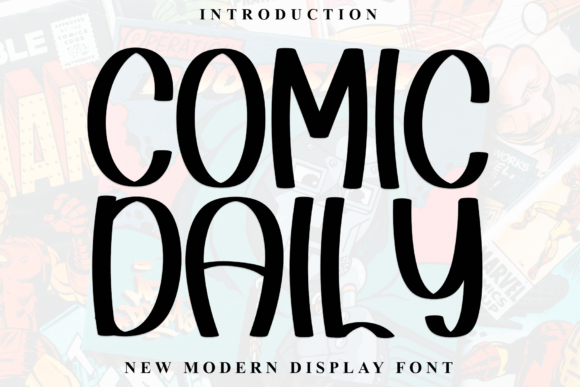
Introducing Comic Daily Font: Adding a Touch of Playfulness to Your Text
Are you looking for a font that can add a dash of excitement and playfulness to your text? Look no further than Comic Daily Font! This fun and lively font is designed to mimic the hand-drawn letters found in comic books, making it perfect for anyone looking to add a touch of whimsy to their writing.
What is Comic Daily Font?
Comic Daily Font is a unique and creative font that is inspired by the classic comic books of the past. It’s designed to look like hand-drawn letters, with a playful and energetic feel that’s sure to capture the attention of your readers. Whether you’re creating a comic book, a poster, or just a simple text document, Comic Daily Font is the perfect choice.
Key Features of Comic Daily Font
So, what makes Comic Daily Font so special? Here are just a few of its key features:
- Hand-drawn look: Comic Daily Font is designed to look like hand-drawn letters, giving it a unique and playful feel.
- Comic book-inspired: The font is inspired by classic comic books, making it perfect for anyone looking to create a comic book-style text.
- Fun and lively: Comic Daily Font is the perfect choice for anyone looking to add a touch of excitement and playfulness to their text.
- Easy to read: Despite its playful design, Comic Daily Font is still easy to read, making it perfect for use in a variety of contexts.
How to Use Comic Daily Font
Using Comic Daily Font is easy! Here are a few tips to get you started:
- Pair it with other fonts: Comic Daily Font works well when paired with other fonts, such as sans-serif fonts like Arial or Helvetica.
- Use it for headings: Comic Daily Font is perfect for use in headings and titles, where its playful design can really shine.
- Experiment with colors: Comic Daily Font looks great in a variety of colors, so don’t be afraid to experiment and find the perfect color for your text.
Benefits of Using Comic Daily Font
So, why should you use Comic Daily Font? Here are just a few of its benefits:
- Adds a touch of personality: Comic Daily Font is a great way to add a touch of personality to your text, making it stand out from the crowd.
- Perfect for creative projects: Comic Daily Font is perfect for use in creative projects, such as comic books, posters, and flyers.
- Easy to use: Comic Daily Font is easy to use, even for those who are new to graphic design.
Where to Use Comic Daily Font
So, where can you use Comic Daily Font? The answer is almost anywhere! Here are a few ideas to get you started:
- Comic books: Comic Daily Font is perfect for use in comic books, where its playful design can really shine.
- Posters and flyers: Comic Daily Font is a great choice for posters and flyers, where its bold and playful design can really grab people’s attention.
- Social media: Comic Daily Font is also a great choice for social media, where its fun and playful design can help your posts stand out from the crowd.
Tips for Using Comic Daily Font Effectively
Here are a few tips for using Comic Daily Font effectively:
- Use it sparingly: While Comic Daily Font is a fun and playful font, it can be overwhelming if used too much. Use it sparingly to add a touch of excitement to your text.
- Experiment with different sizes: Comic Daily Font looks great in a variety of sizes, so don’t be afraid to experiment and find the perfect size for your text.
- Pair it with images: Comic Daily Font looks great when paired with images, so consider using it in combination with photos or illustrations.
In conclusion, Comic Daily Font is a fun and playful font that’s perfect for adding a touch of excitement to your text. With its hand-drawn look and comic book-inspired design, it’s a great choice for anyone looking to create a lively and engaging text. Whether you’re creating a comic book, a poster, or just a simple text document, Comic Daily Font is the perfect choice.
- Is Comic Daily Font easy to read? Yes, despite its playful design, Comic Daily Font is still easy to read, making it perfect for use in a variety of contexts.